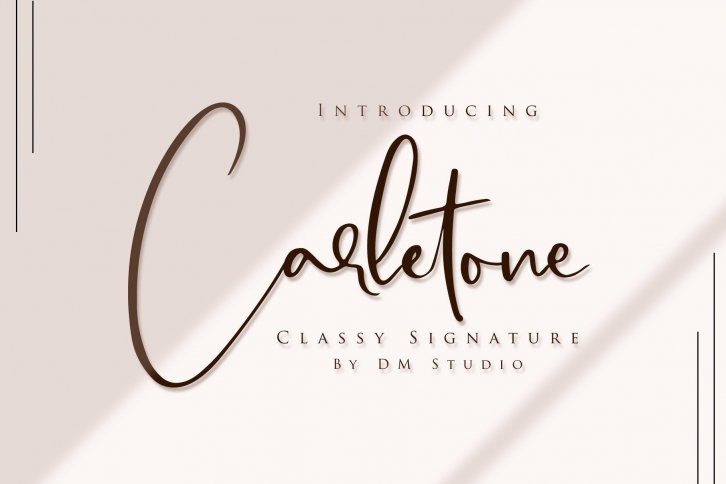
Introducing, Carletone Signature.
Get inspired with this classy, versatile and beautiful handwritten with a modern and minimalist style. Great choice for your all seasonal
upcoming projects, crafts, wedding, businness related, or even for your social media posts.
- Including Uppercase, lowercase, numeric and symbols
- Support multilingual
- 35 Ligatures ( as af al ay am an cr cl cc ck co dd dr ee er el at et gr gh ir il it ll mn or ss st rr tt tr os oo pr ar )